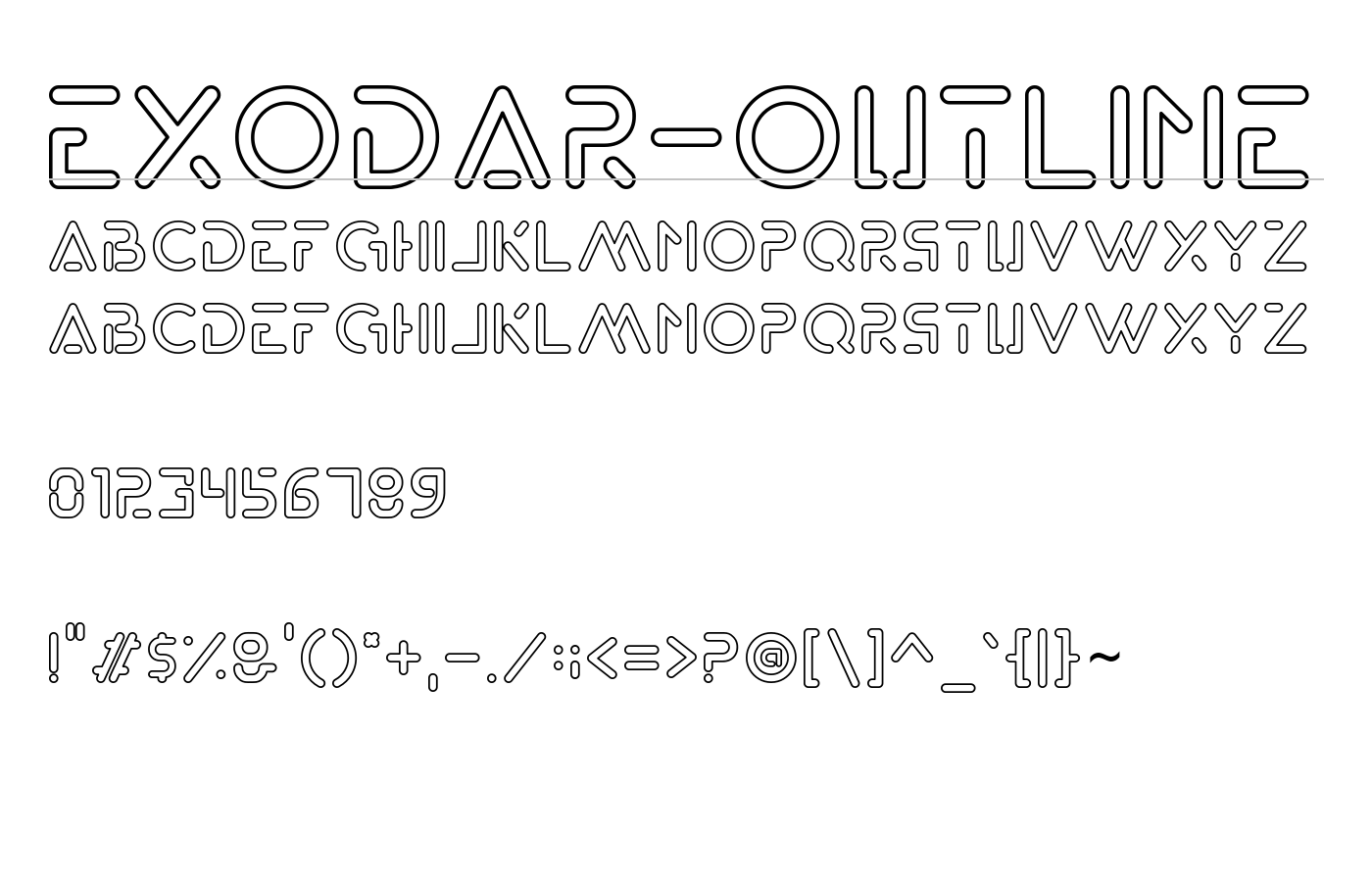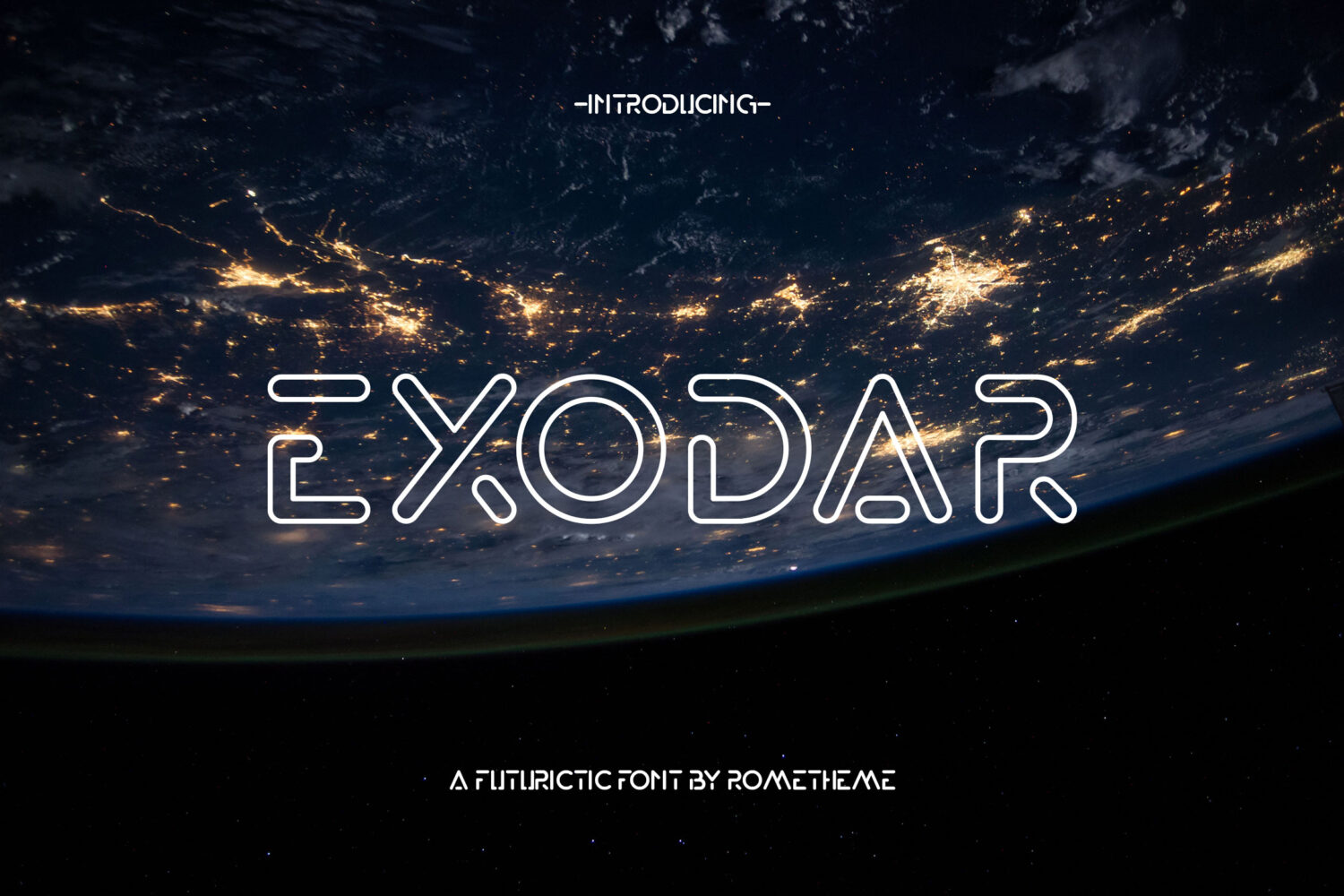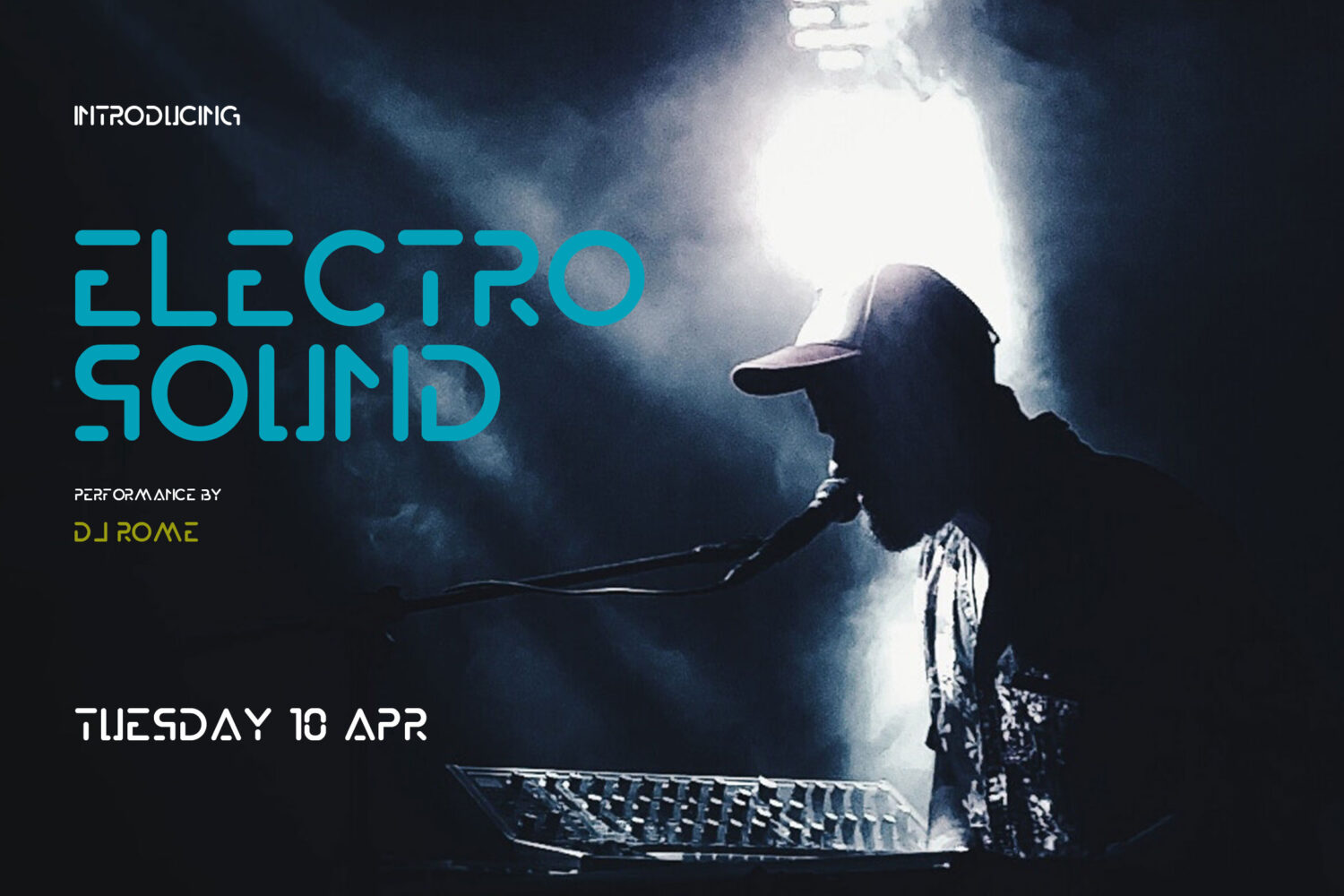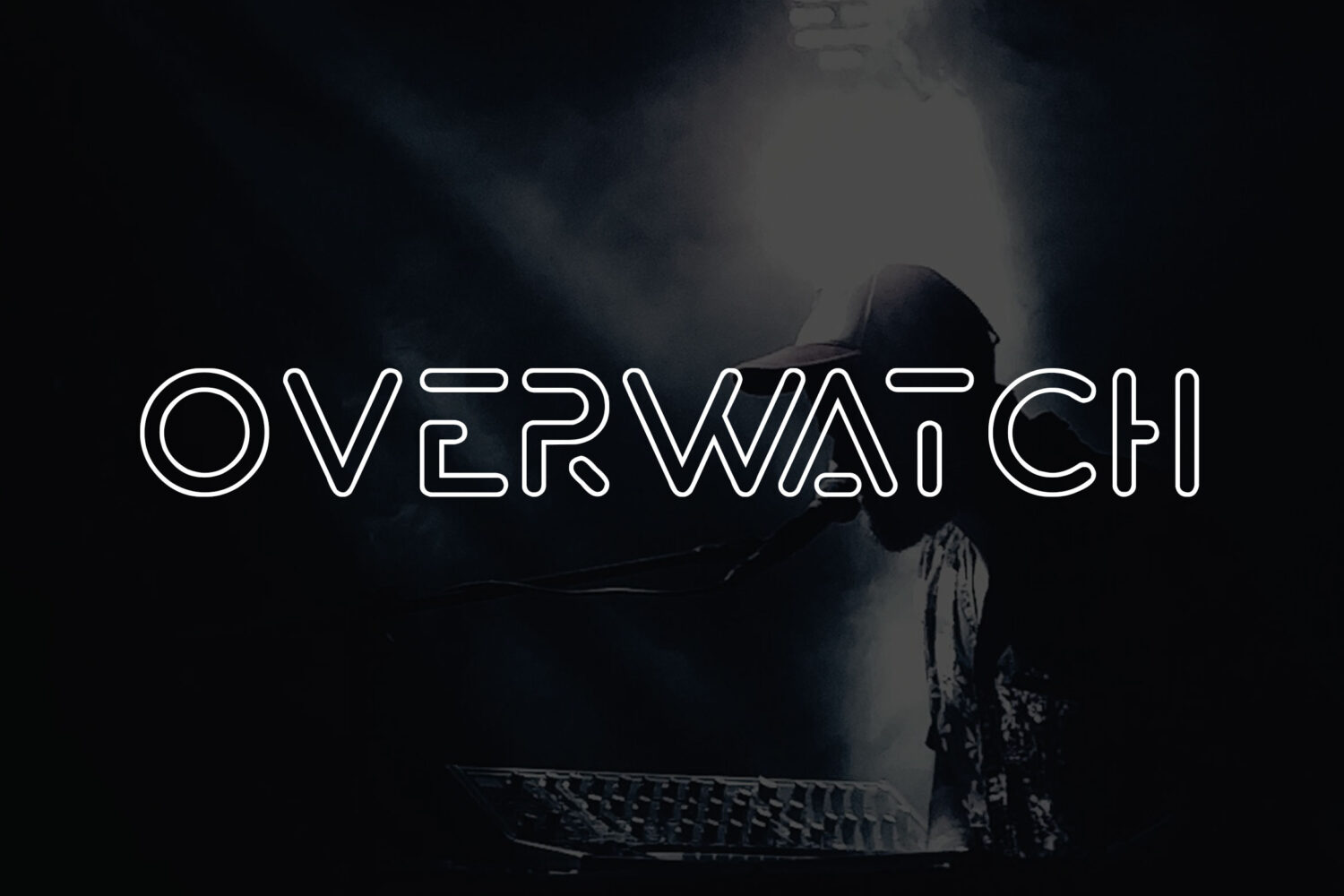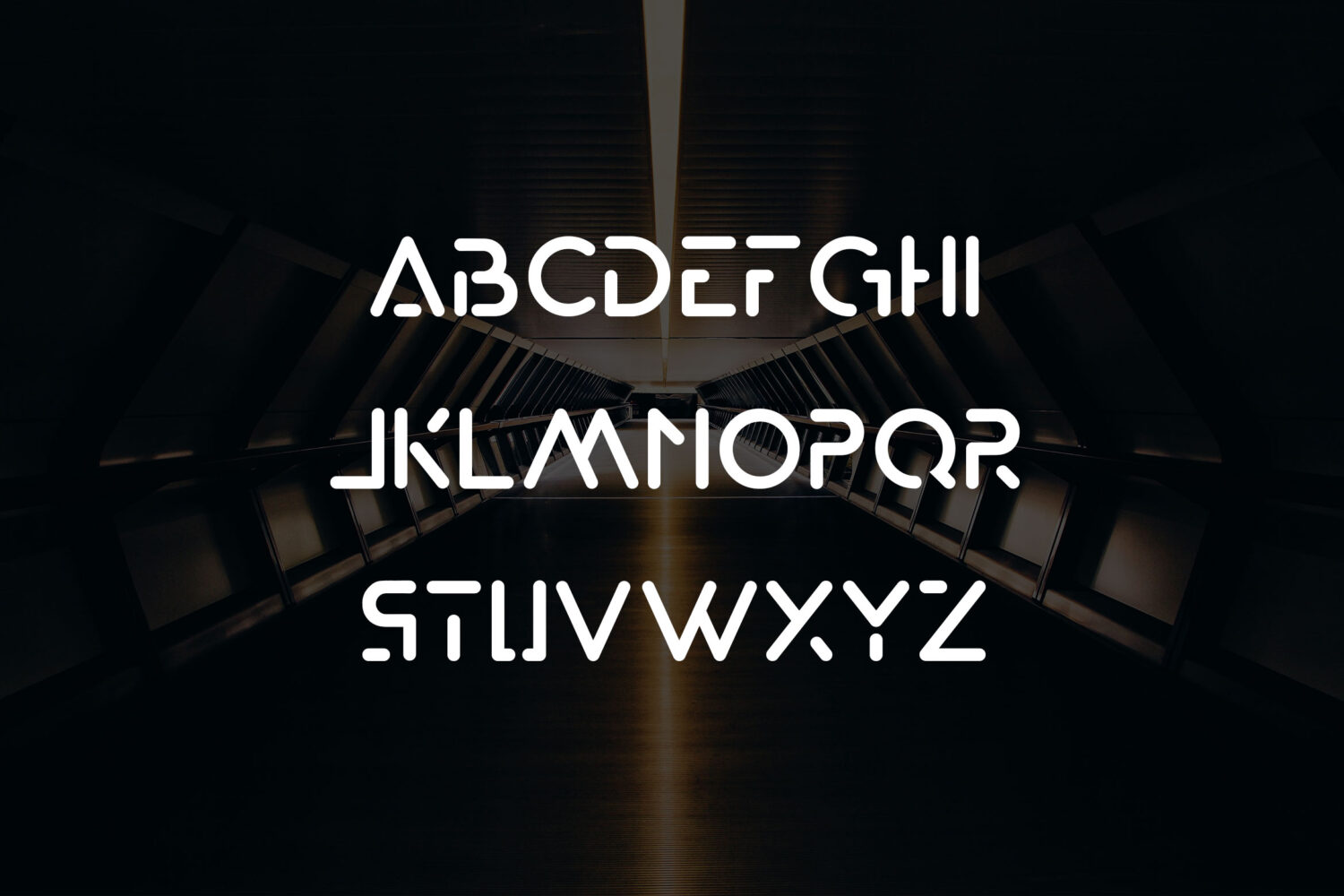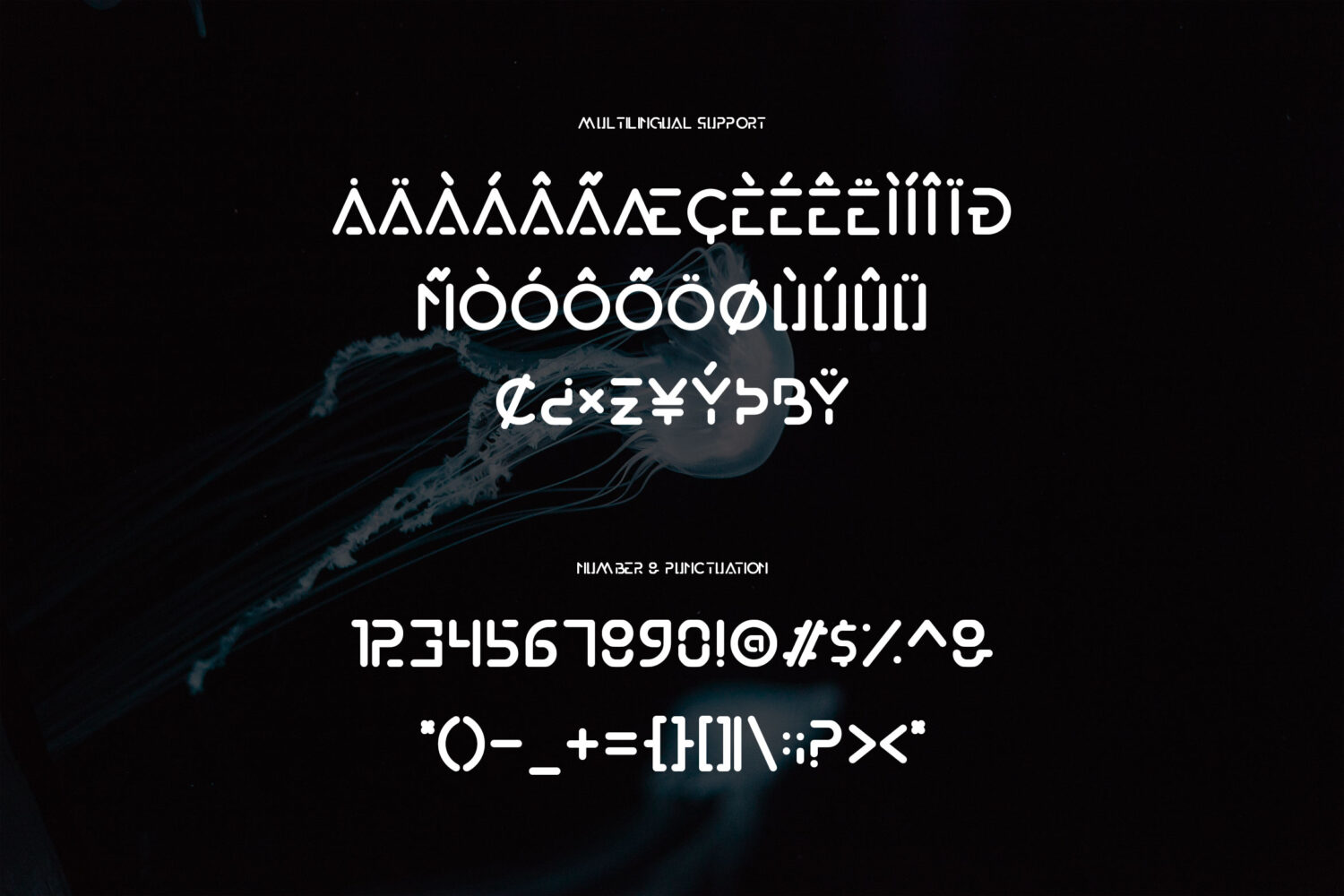
Exodar is a futuristic, geometric sans serif font with a sleek outline style that combines sharp angles and smooth curves, offering a modern and tech-inspired look. Its unique letterforms and airy spacing make it ideal for branding, headlines, and digital projects where a clean, cutting-edge aesthetic is desired. This font works especially well for technology, gaming, and innovative industries seeking a distinctive yet readable design.
Exodar